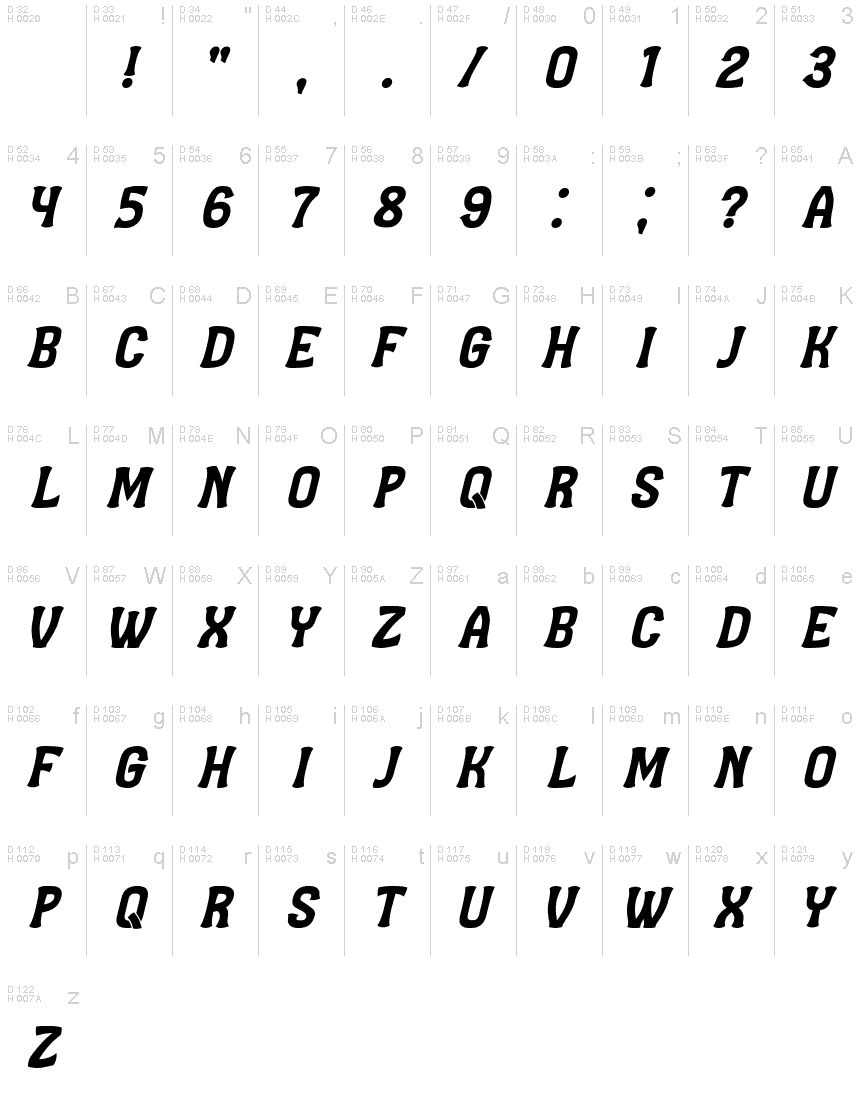
Army Jeep Italic
Army Jeep Italic is a bold and commanding display font from renowned designer Vladimir Nikolic. With its rugged, military-inspired design, this semi-serif typeface is perfect for projects that require a strong and confident aesthetic. Whether you're designing logos, posters, or headlines, Army Jeep Italic's striking and distinctive style will make your message stand out. And with its unique combination of sleek curves and sharp angles, this font is equally suited for both modern and vintage designs. So if you're looking to add some serious firepower to your typography arsenal, Army Jeep Italic is the font you've been searching for!